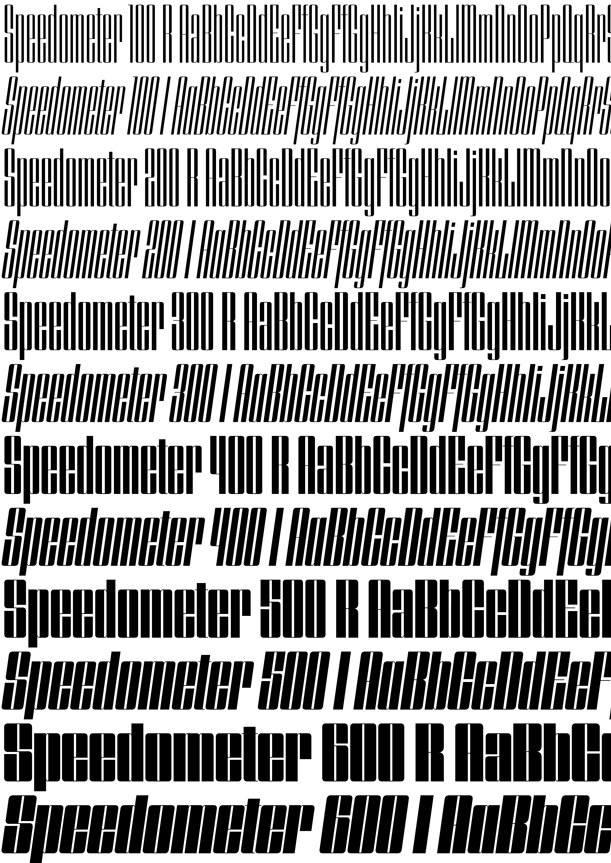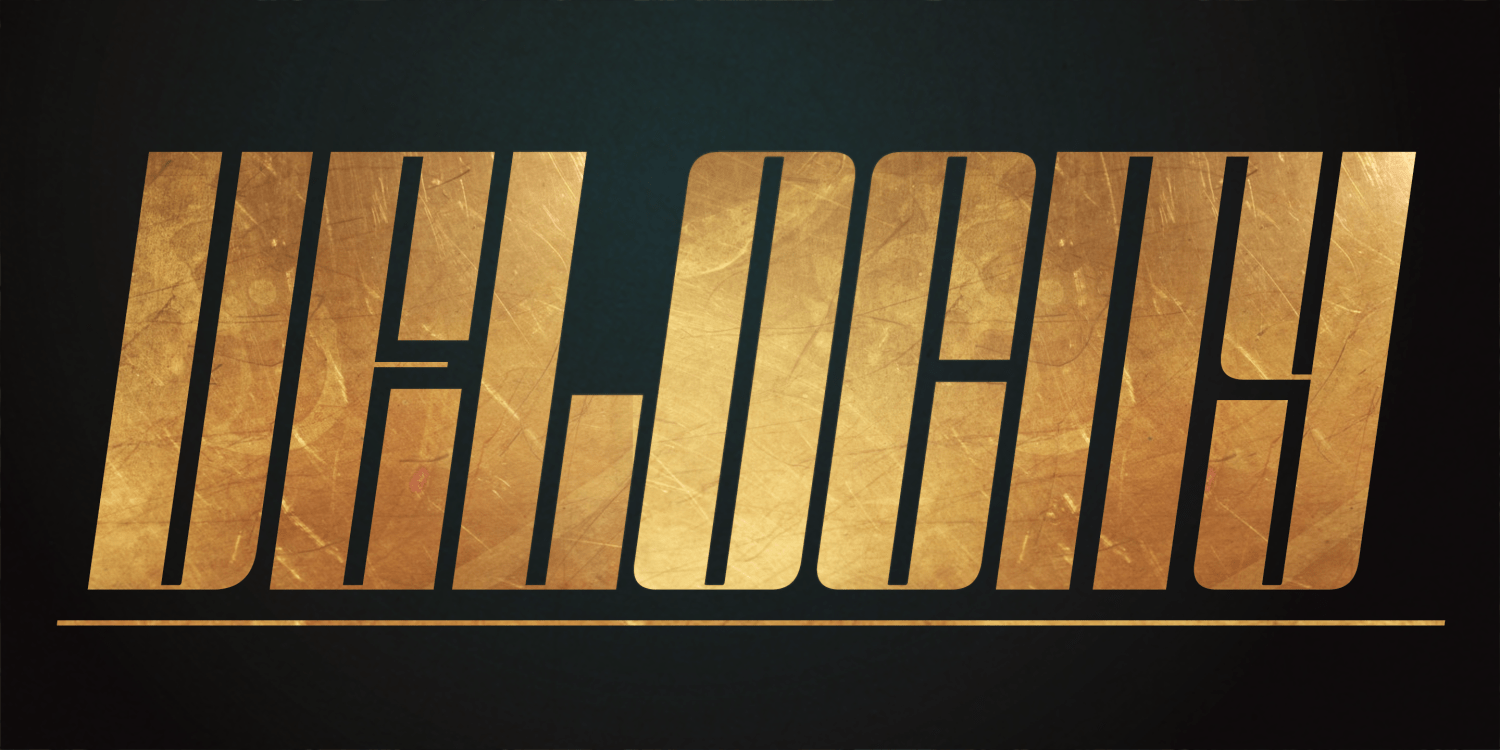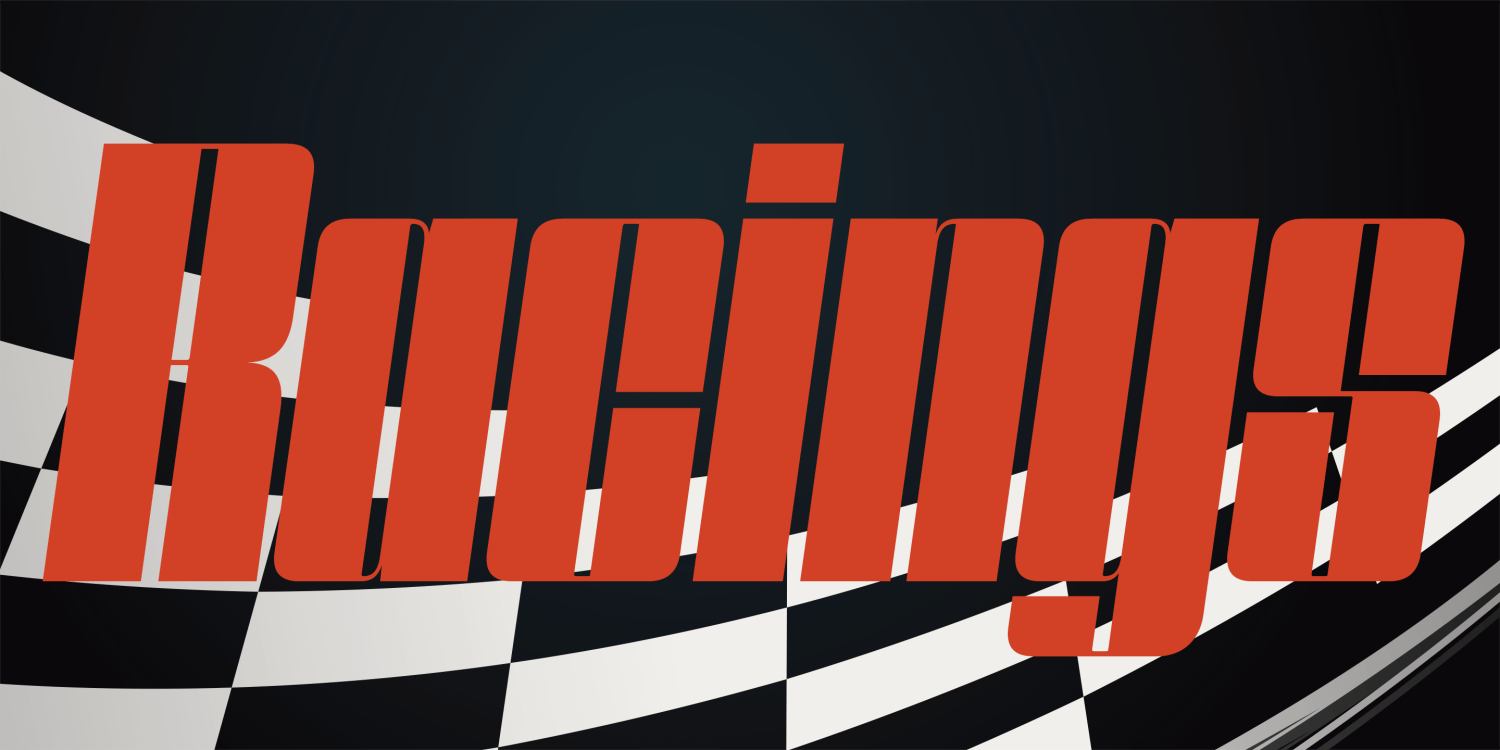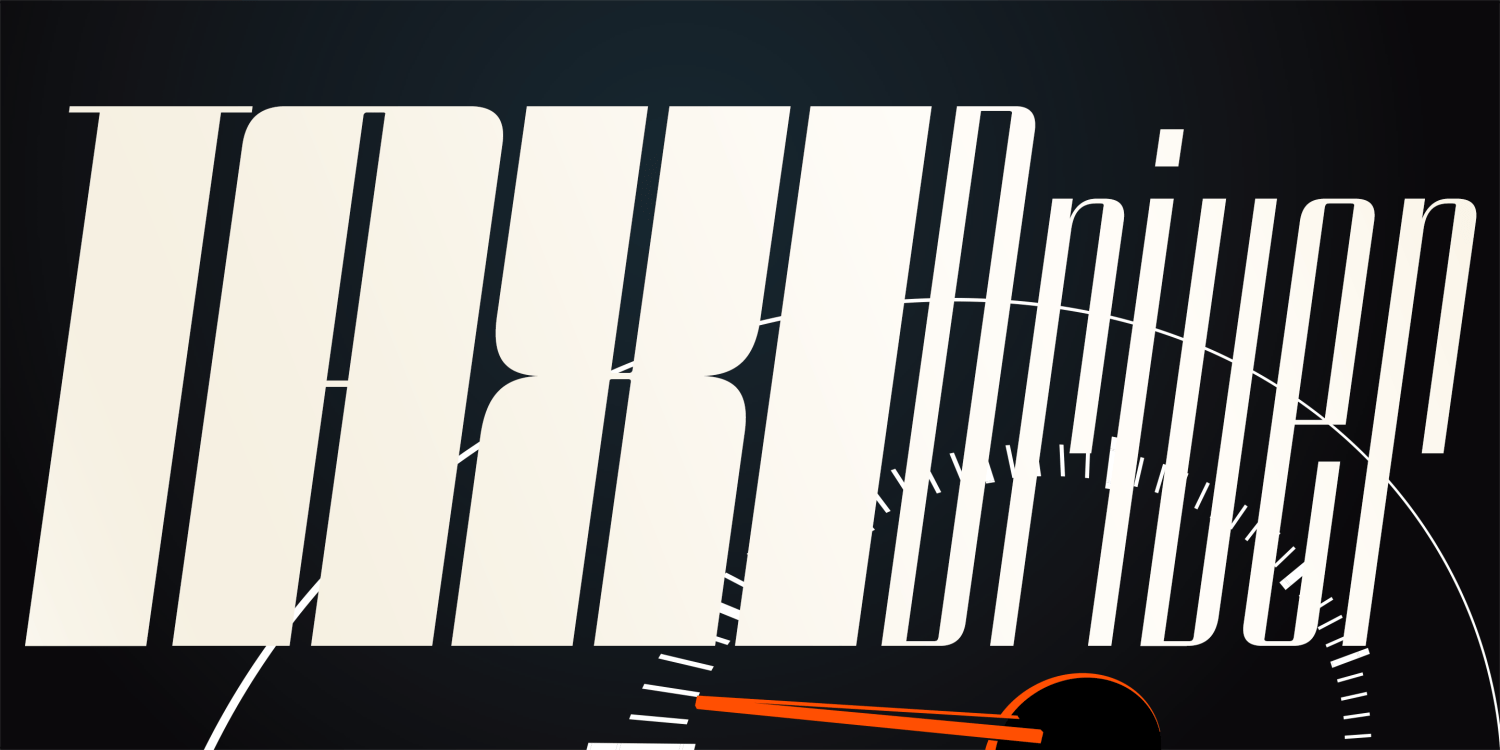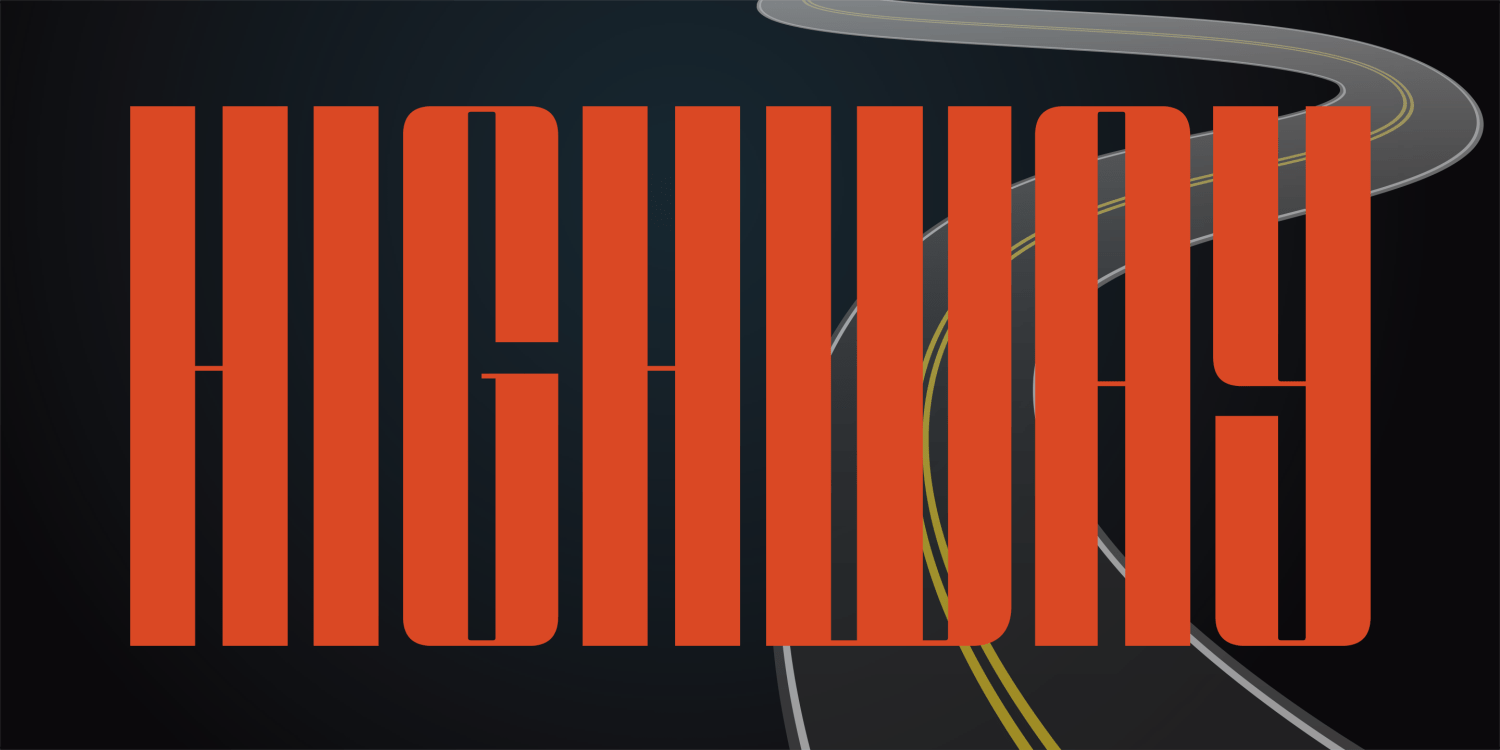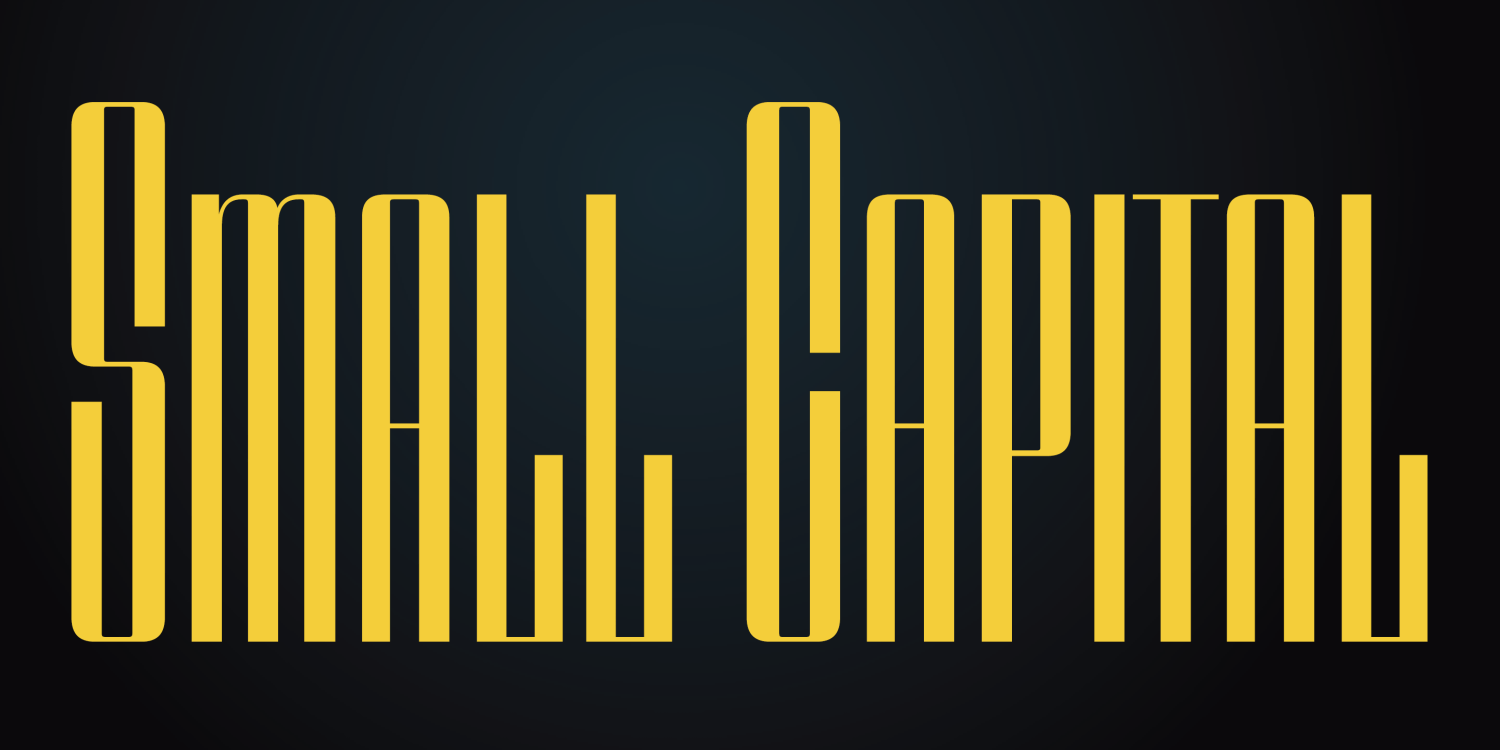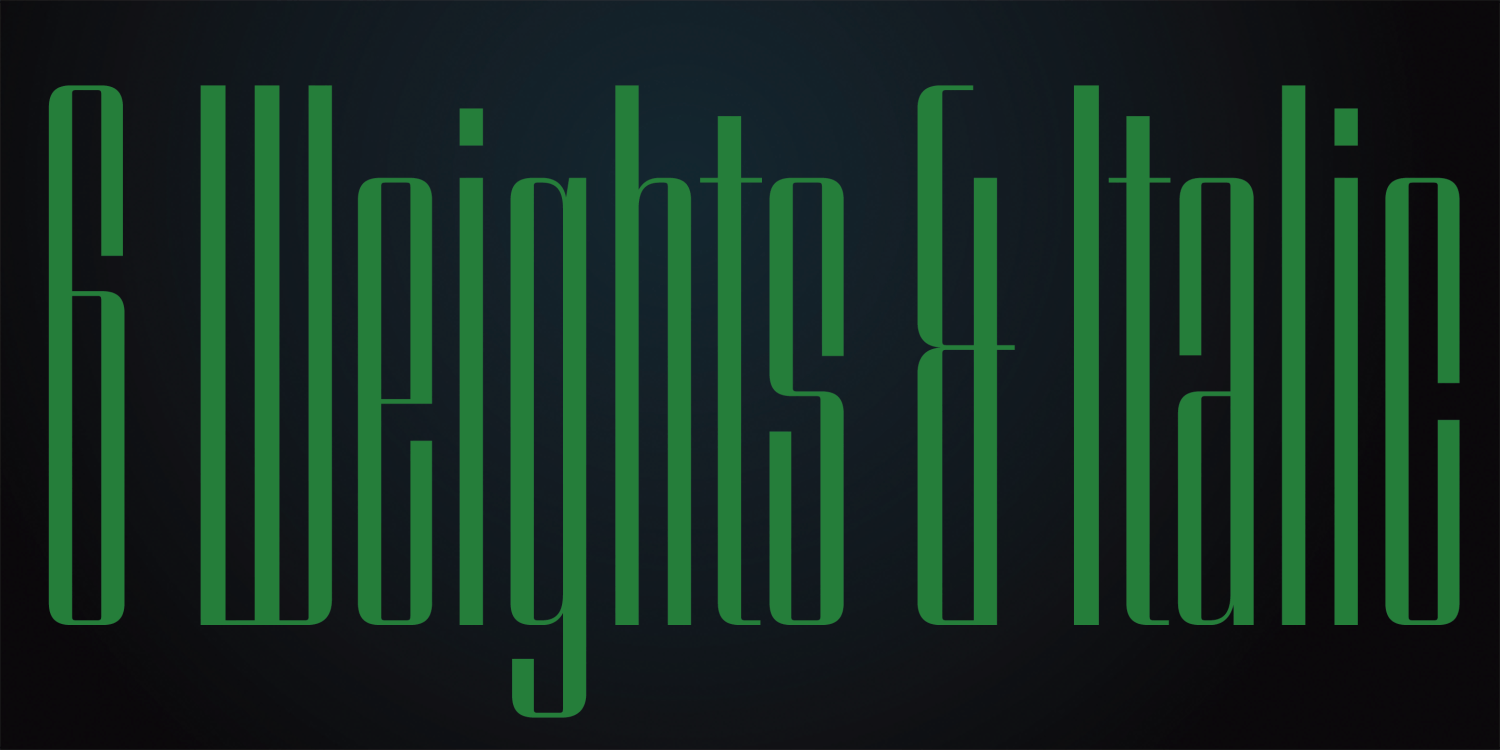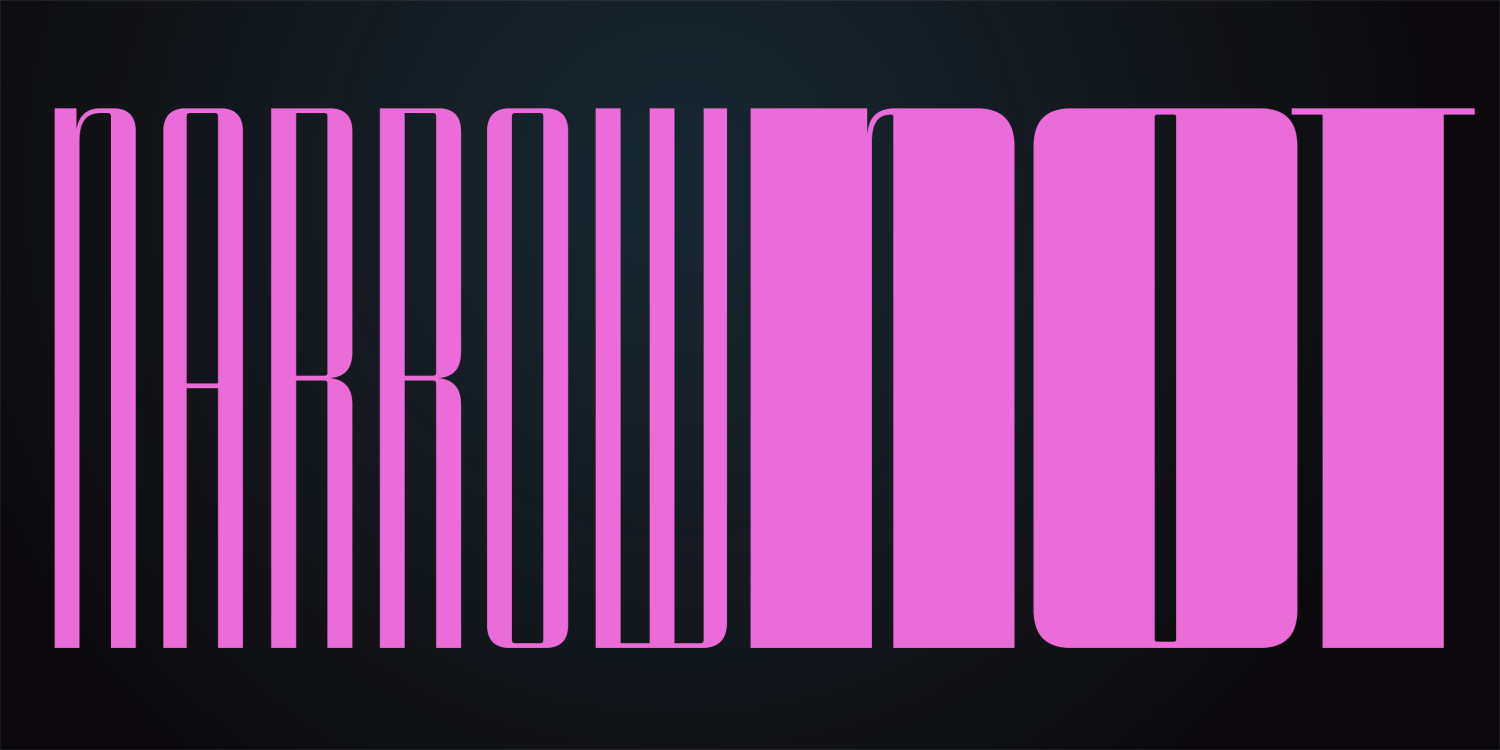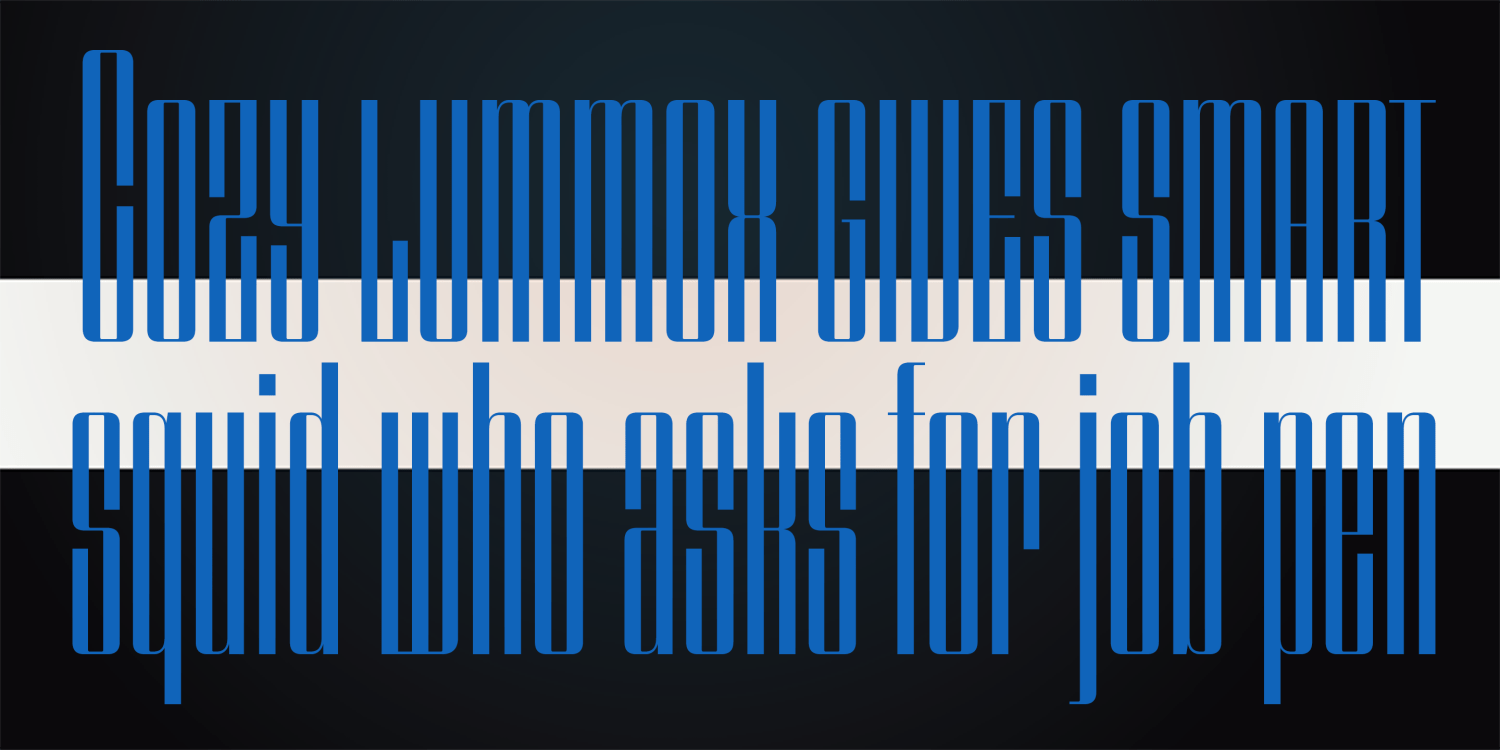
Speedometer
Font Family by Dharma Type
Speedometer is a typeface derived from the Dimensions font family—one of the narrowest and boldest fonts designed for titling and logos.
Compared to Dimensions, Speedometer offers a more elegant appearance through its striking contrast between thick stems and thin arms, which also enhances its sense of energy and speed.
The family includes 6 weights with matching italics, all featuring uppercase and lowercase characters, accented glyphs, and small capitals, accessible via the OpenType smcp feature.